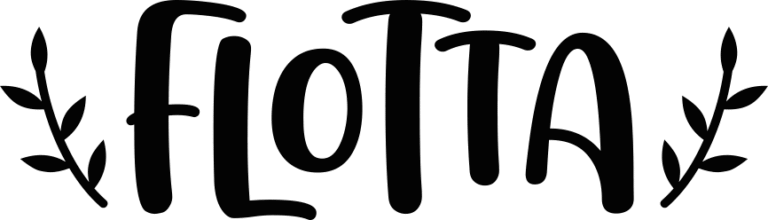
Garden Sans Font
Searching for a specific groovy font?! Garden Sans font will occupy you with its sans serif style and chunky characters that have interesting tails! By utilizing this groovy font you will have one funky typography that is chic and creative with a classic feel.
The encouraging news is that Garden Sans font offers mixed letters, a full set of numbers, and punctuations for you to develop your ideal design. It fits well in places like book titles, logos, headings, stickers, and more.